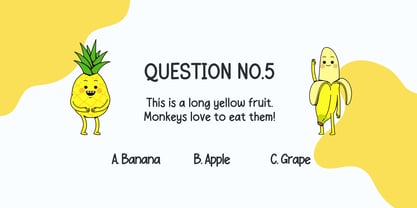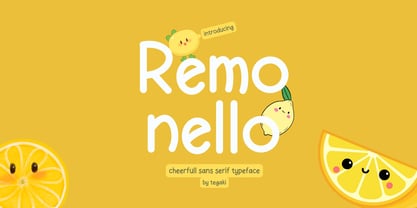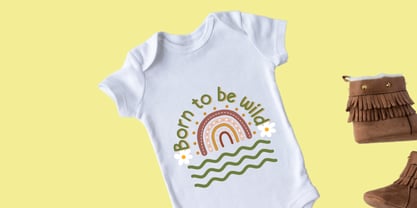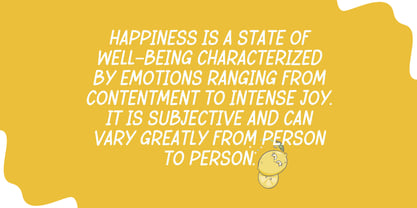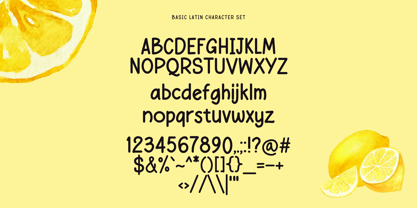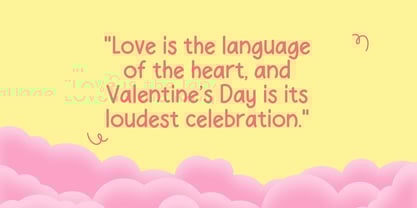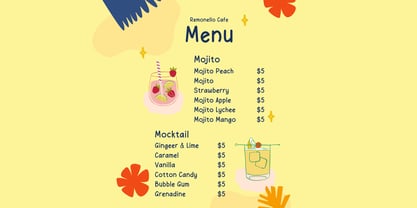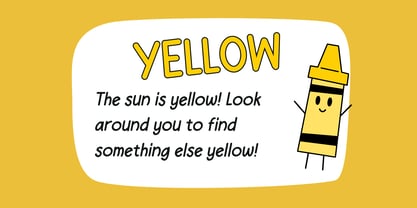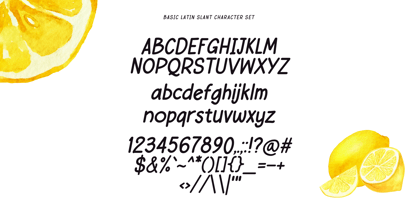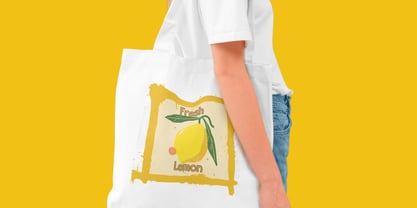
Remonello
by Tegaki
The Remonello Font Family was designed by Rudi Suhairi and published by Tegaki. Remonello contains 2 styles and family package options.
Remonello, Cheerful Sans Serif Font is a fun and lively typeface designed to bring joy to any project. It comes in Regular and Slant styles, giving you flexibility for different designs. With Extended Latin Character support, it works seamlessly across multiple languages.
This font is perfect for:
* Branding & Logos – Creates a friendly and approachable identity.
* Children’s Books & Packaging – Adds a playful and engaging touch.
* Posters & Social Media – Makes headlines stand out with a fun vibe.
* Magazines & Travel Guides – Brings a fresh and modern feel.
Whether for creative projects or professional use, this font adds a cheerful and stylish touch to your designs.